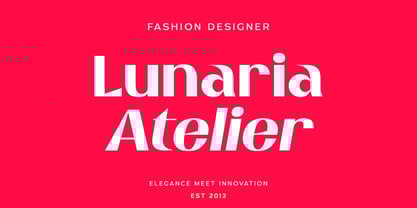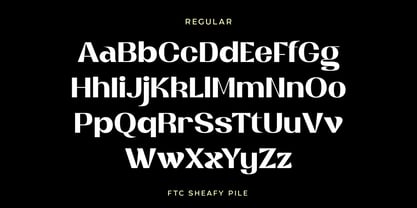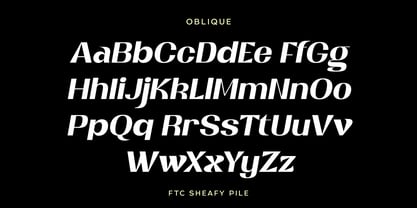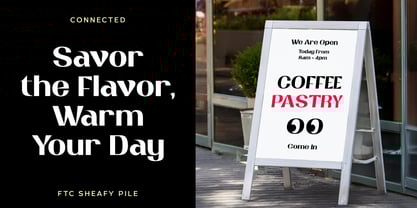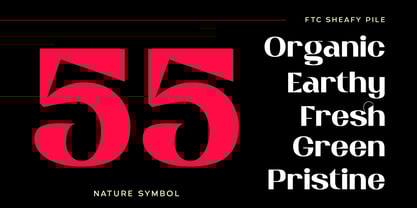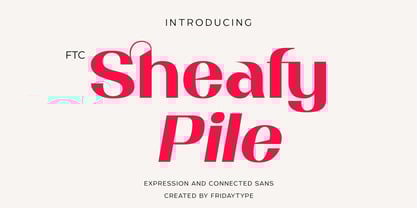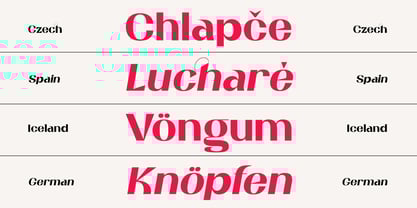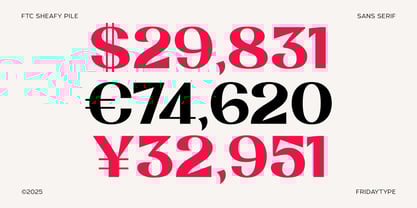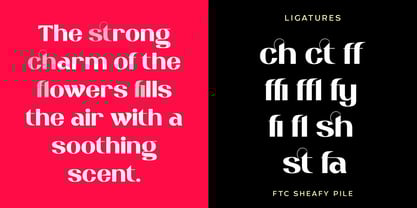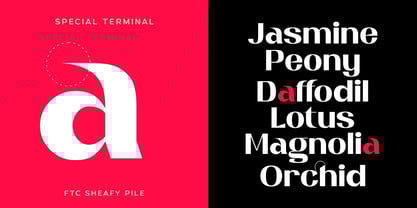
Sheafy Pile
by Fridaytype
The Sheafy Pile Font Family was designed by Farida Kurniawan and published by Fridaytype. Sheafy Pile contains 2 styles and family package options.
Sheafy Pile is a sans-serif display font that combines unique elements of expression and connection. Its distinct style is designed to stand out while maintaining a clean and modern appearance. Perfect for branding purposes, Sheafy Pile delivers a balance of creativity and professionalism, making it ideal for logos, packaging, and other visual identity projects.
Feature:
• Sheafy Pile Regular & Oblique
• Lowercase Uppercase
• Numbers & punctuation
• International characters (Multilingual)
• More Ligature
• OpenType Features
Designers: Farida Kurniawan
Publisher: Fridaytype
Foundry: Fridaytype